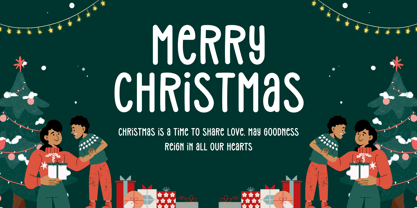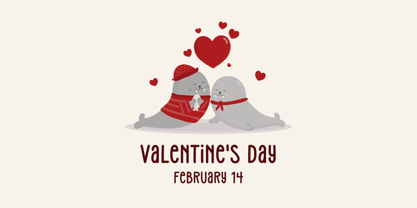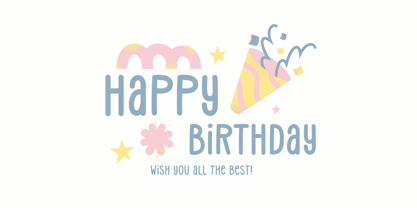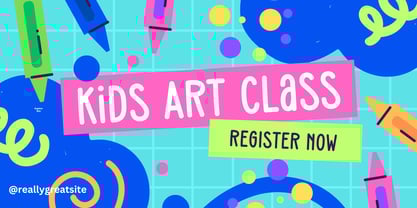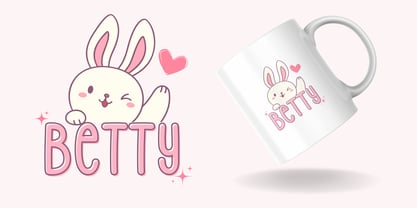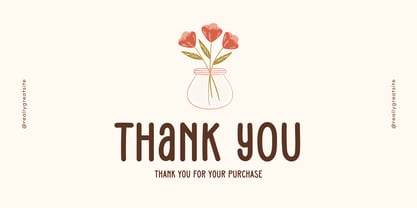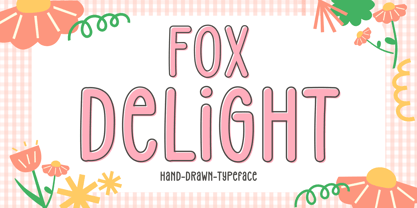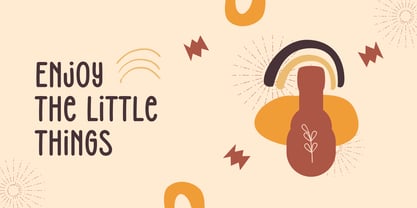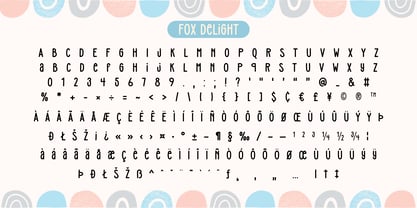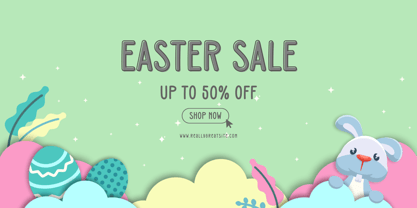
Fox Delight
by Fox7
The Fox Delight Font Family was designed by Rattana Rattanawan and published by Fox7. Fox Delight contains 1 styles.
Fox Delight is a charming and whimsical hand-drawn font designed to bring a sense of joy and warmth to any creative project. Featuring soft curves, rounded edges, and a playful, slightly irregular design, this typeface exudes a friendly and casual vibe. Perfect for greeting cards, children's books, branding, invitations, packaging, and more, Fox Delight adds a touch of handmade charm to your designs. With its fun and lively aesthetic, Fox Delight is an excellent choice for projects that need a delightful, cheerful, and inviting look.